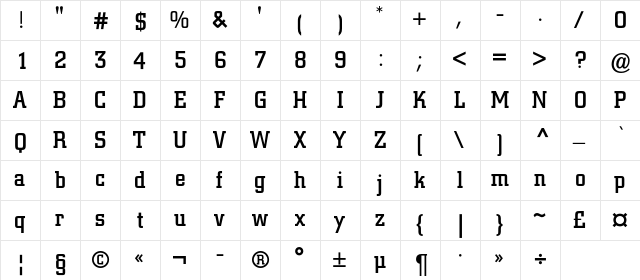
Coliseum-Bold Regular
Design Context for Coliseum-Bold Typeface
Coliseum-Bold is a composed and adaptable typeface that performs quietly and consistently across a wide range of design contexts. The heavy weight commands attention and anchors typographic hierarchies.